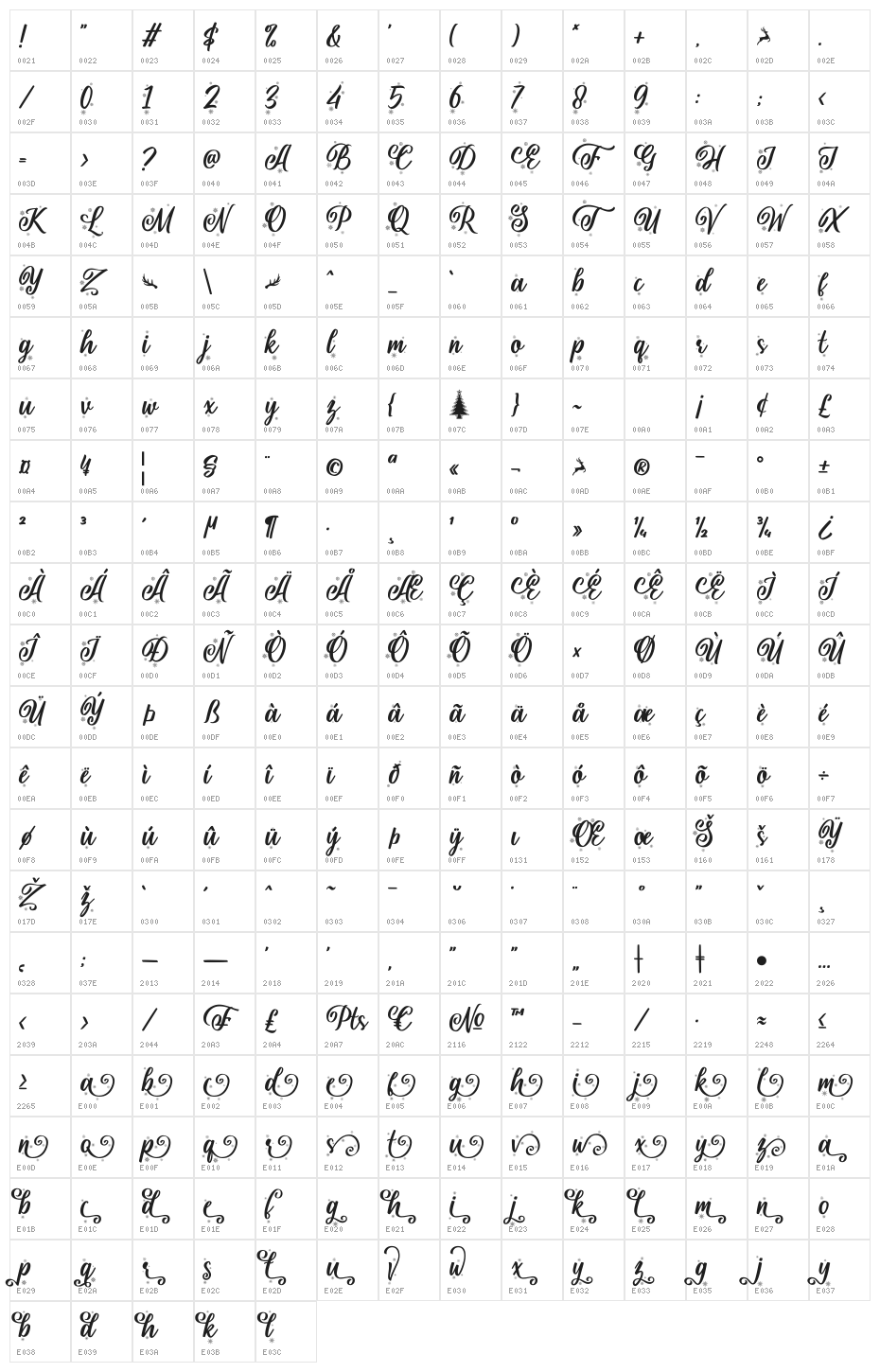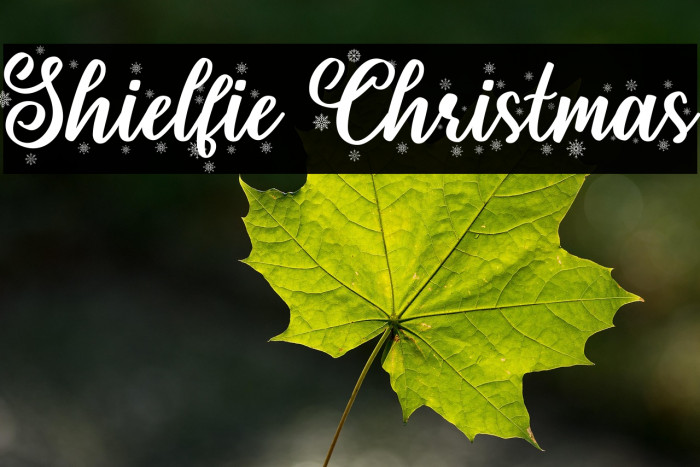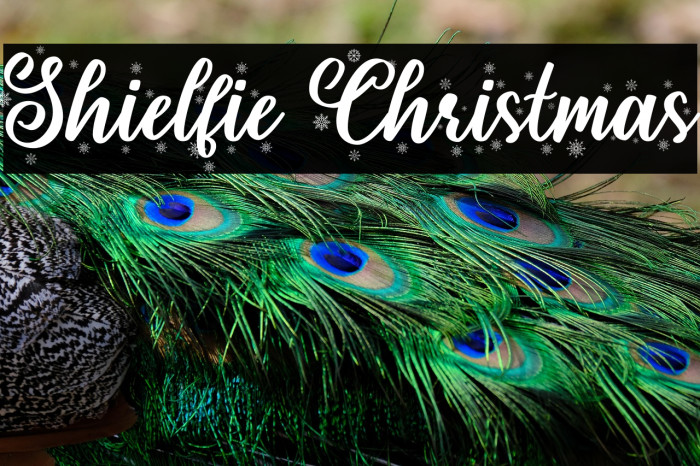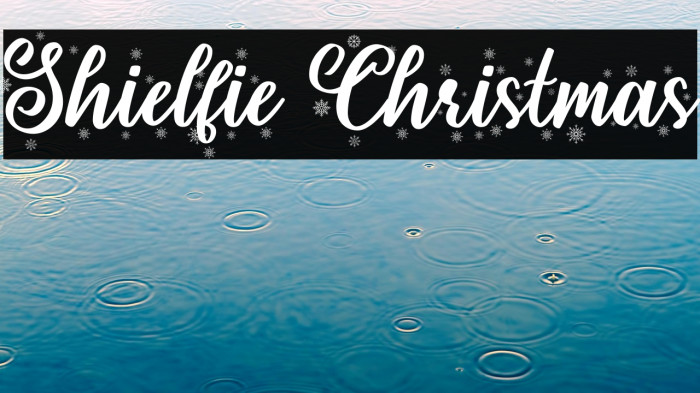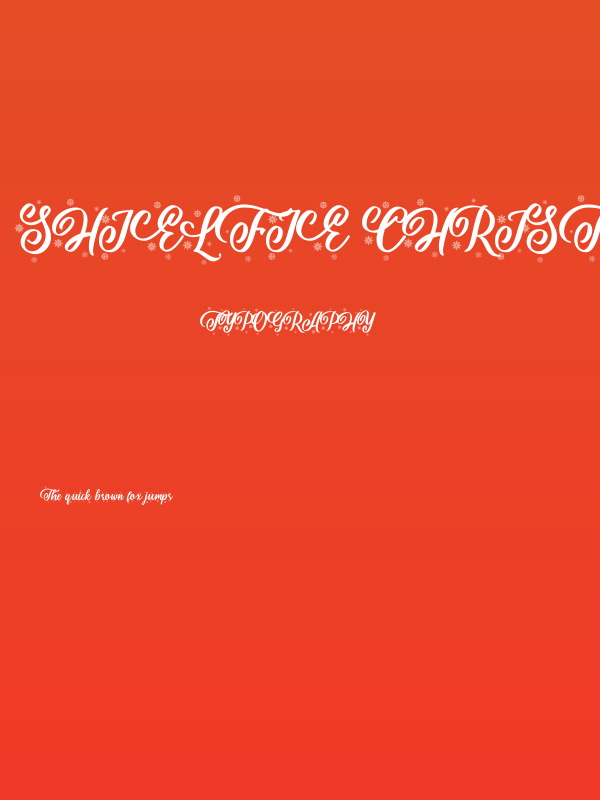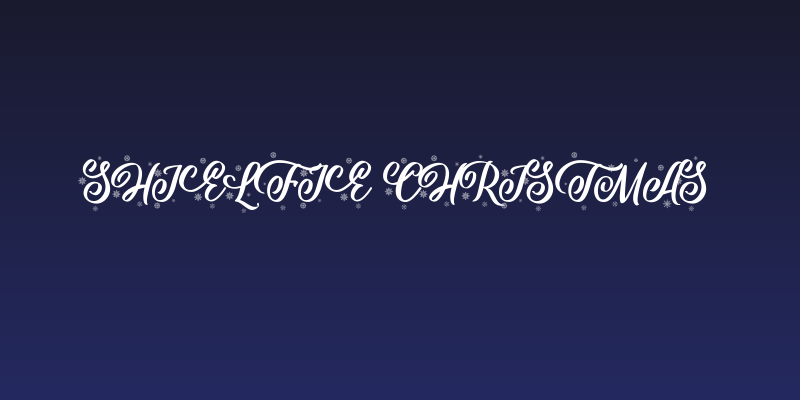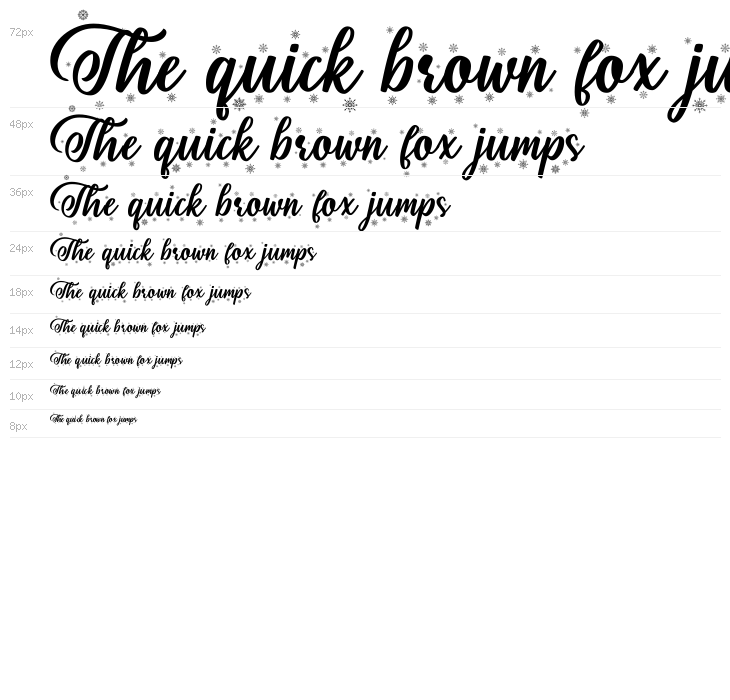
Shielfie Christmas Font
Shielfie Christmas Description
This font exudes a festive and whimsical charm, perfect for holiday-themed projects. The uppercase letters are adorned with delicate snowflakes, adding a playful and decorative touch. The lowercase letters maintain a smooth, cursive style that complements the overall festive theme. Numbers and special characters are designed with the same playful elegance, ensuring consistency across all text elements. The font's unique style makes it ideal for creating eye-catching holiday cards, invitations, and seasonal marketing materials.
| Overall Style | Festive, Whimsical, Decorative |
| Use Case | Headlines, Decorative text, Holiday themes |
| Proposed Projects | Ideal for holiday cards, festive invitations, seasonal marketing materials, and decorative signage. |